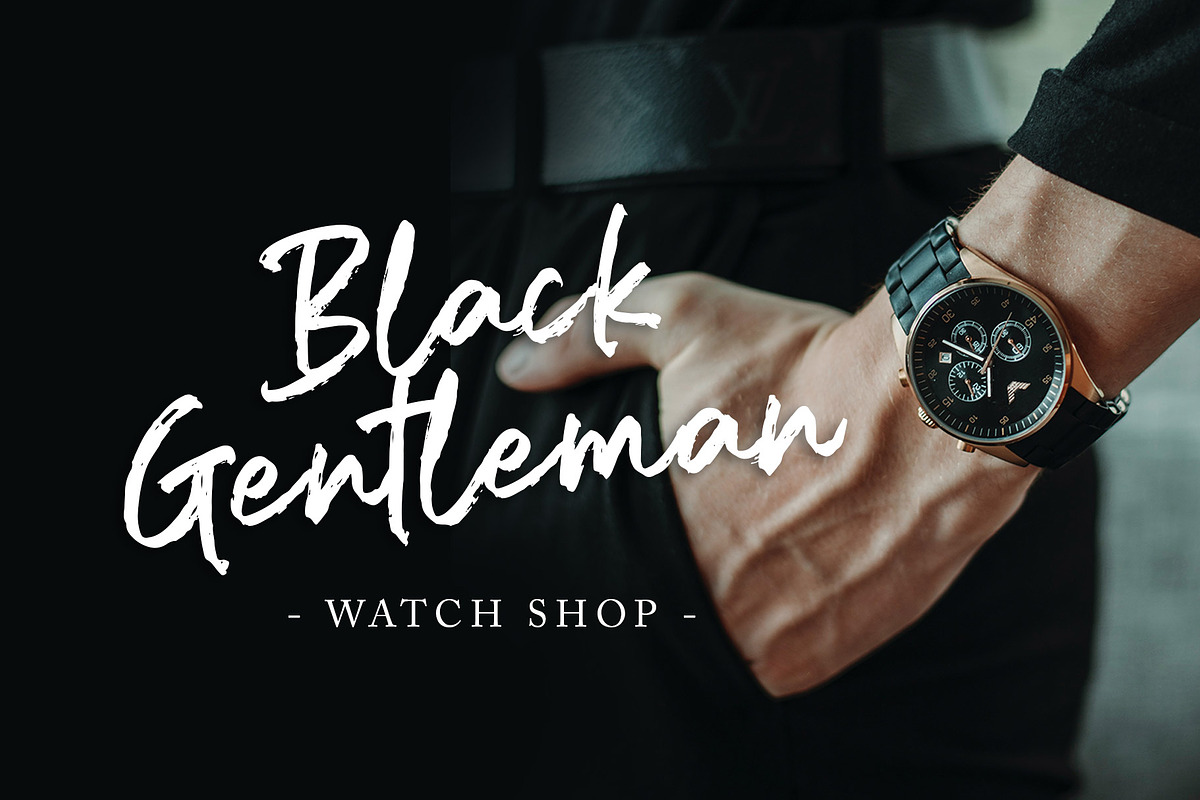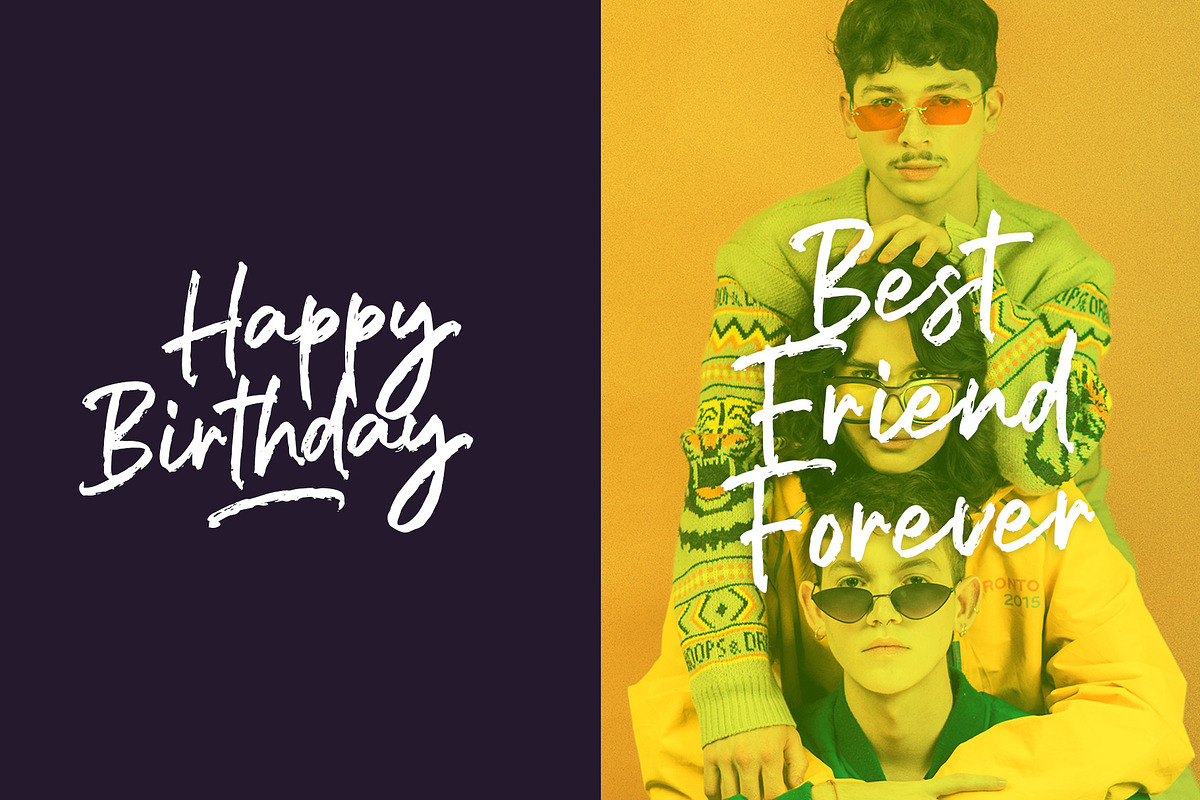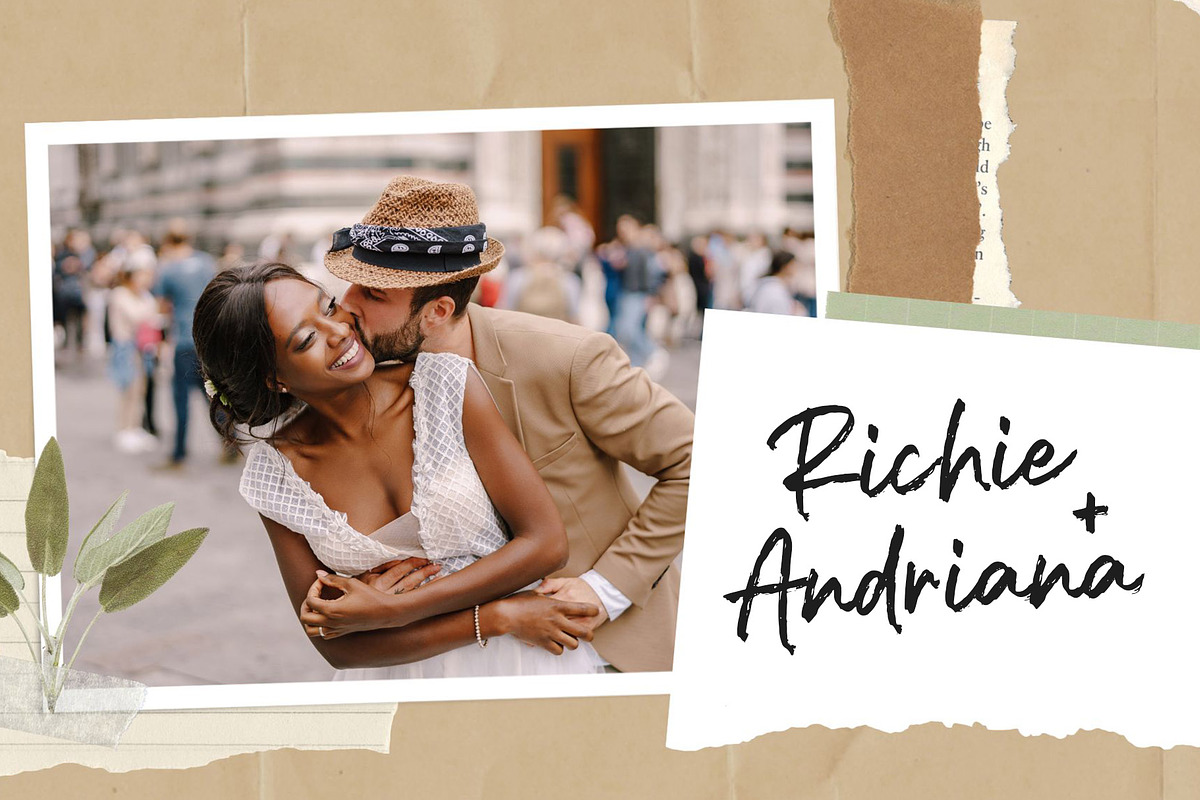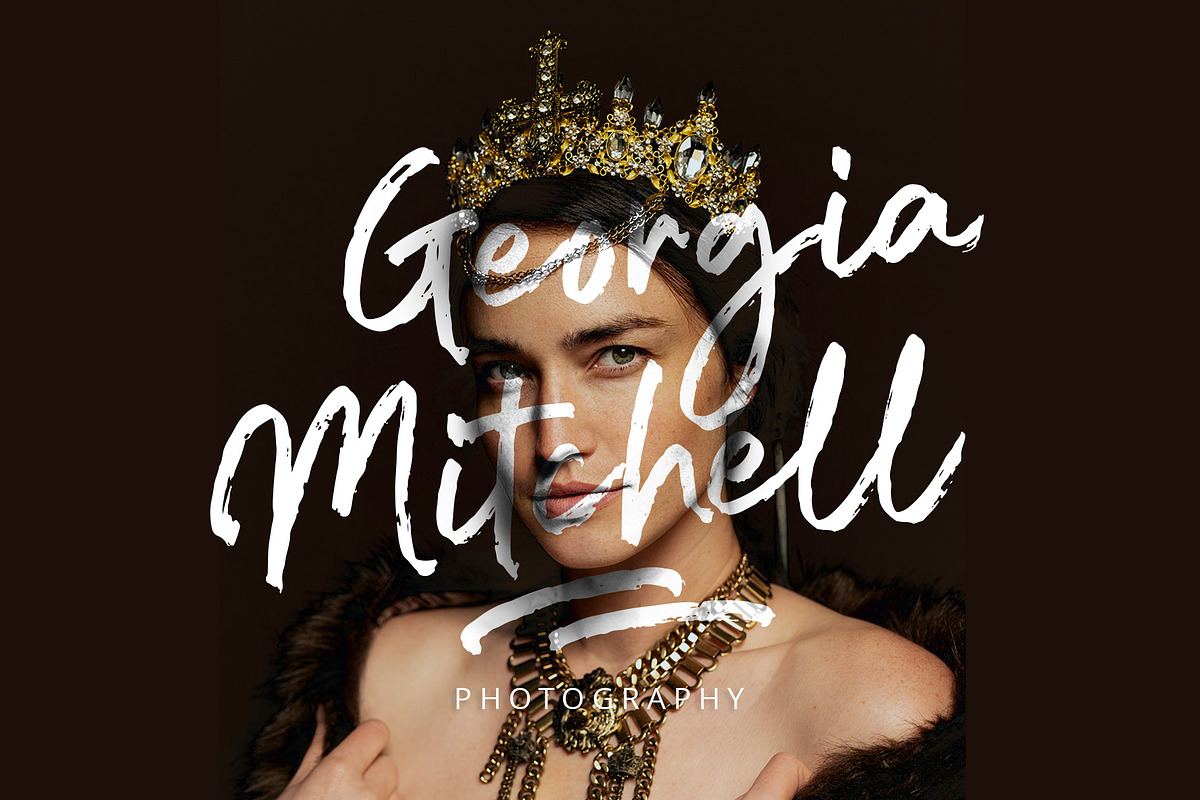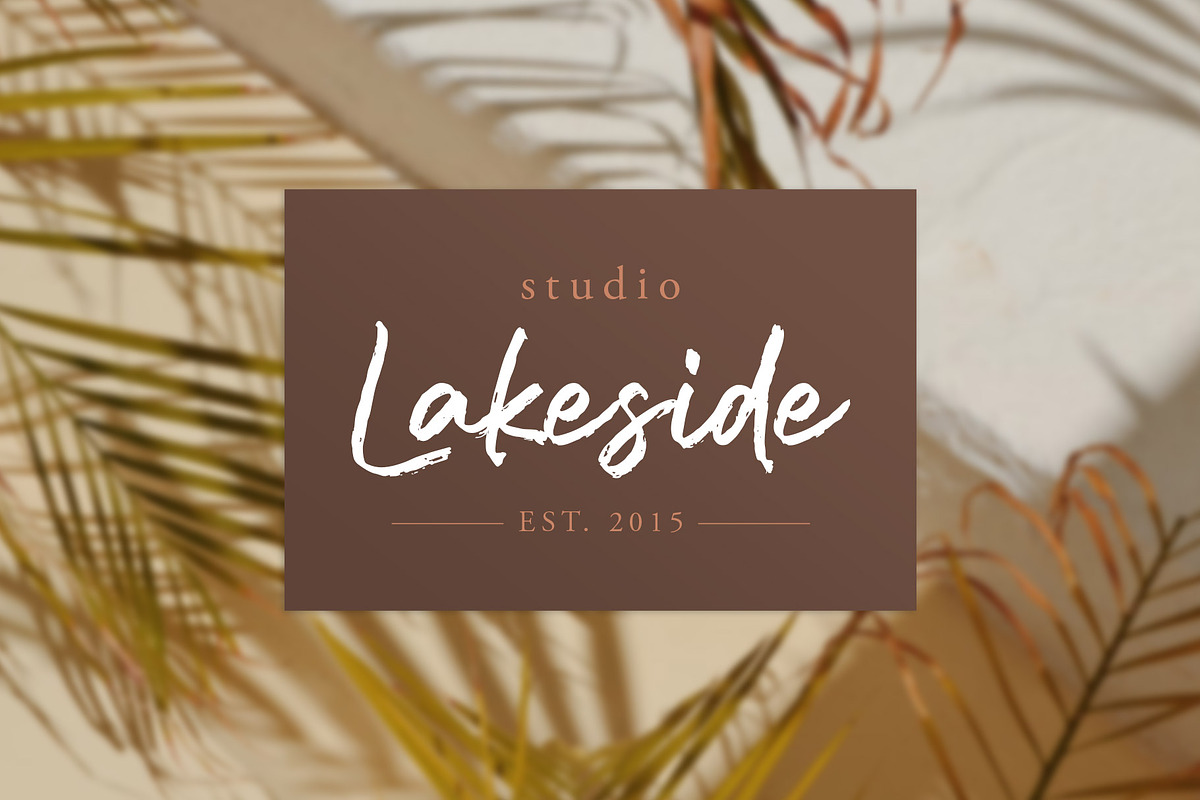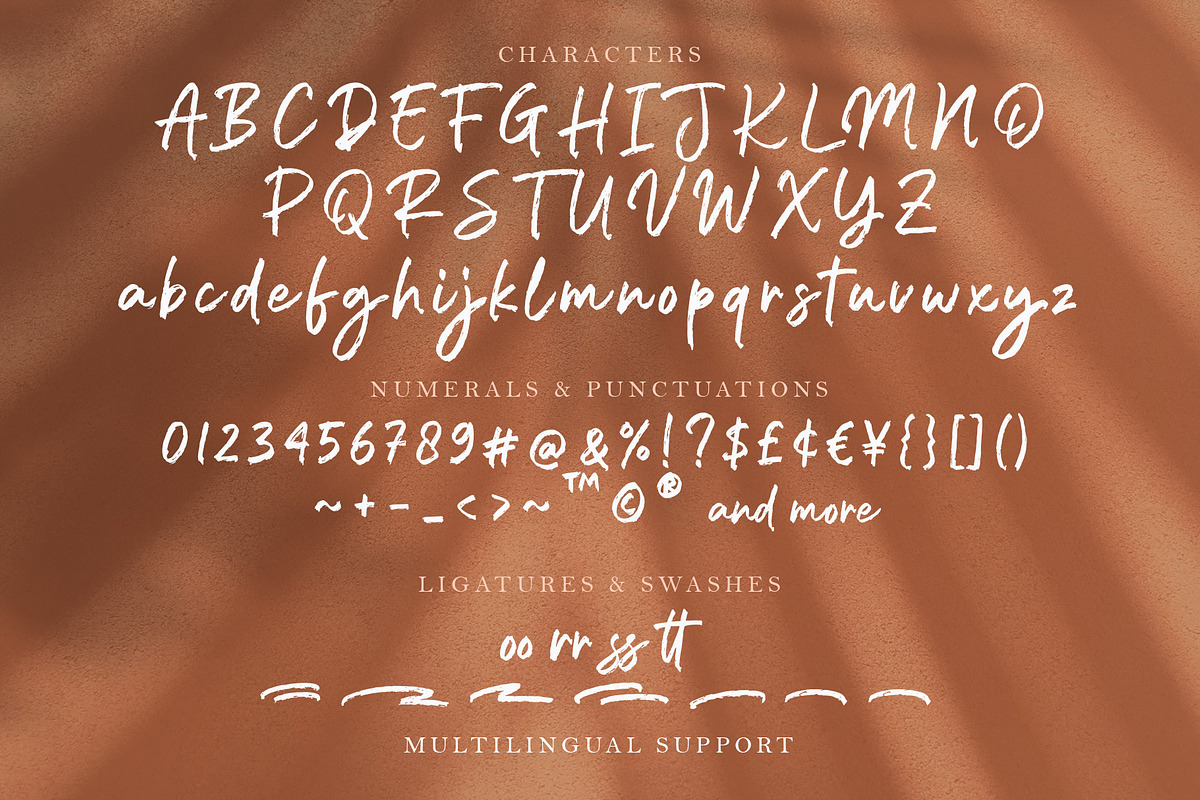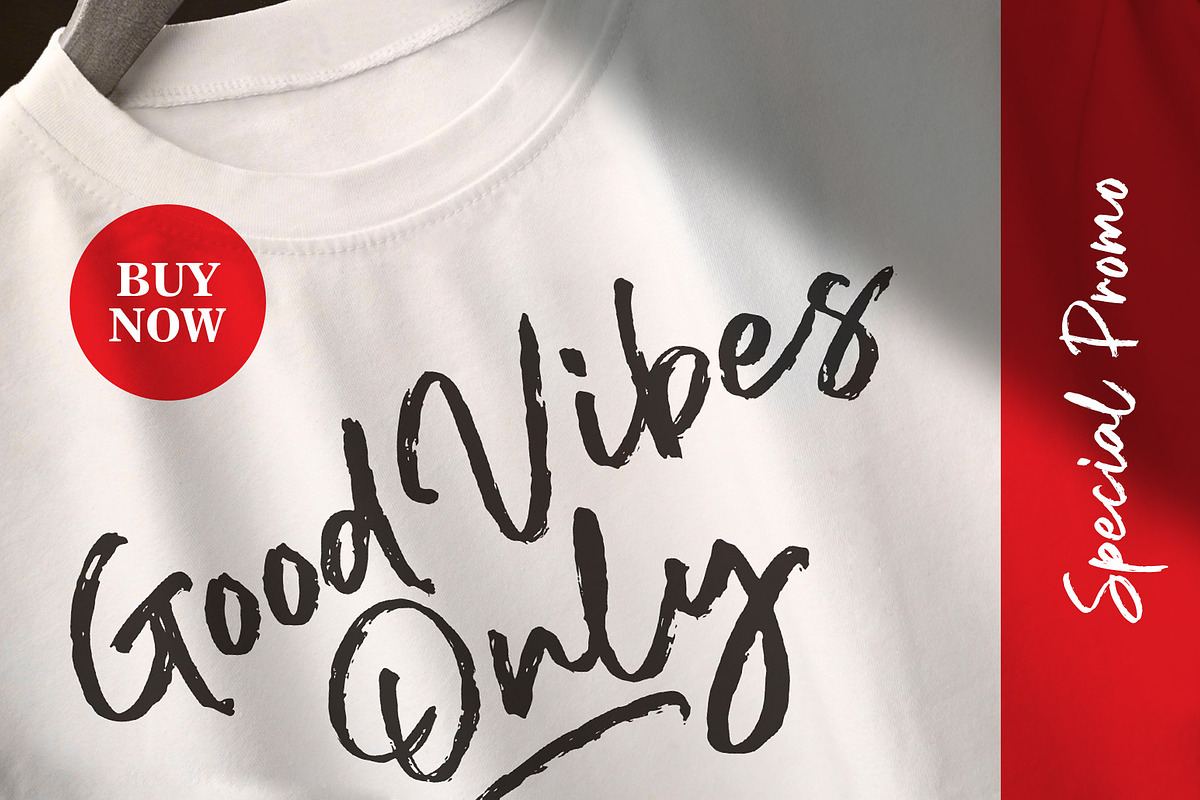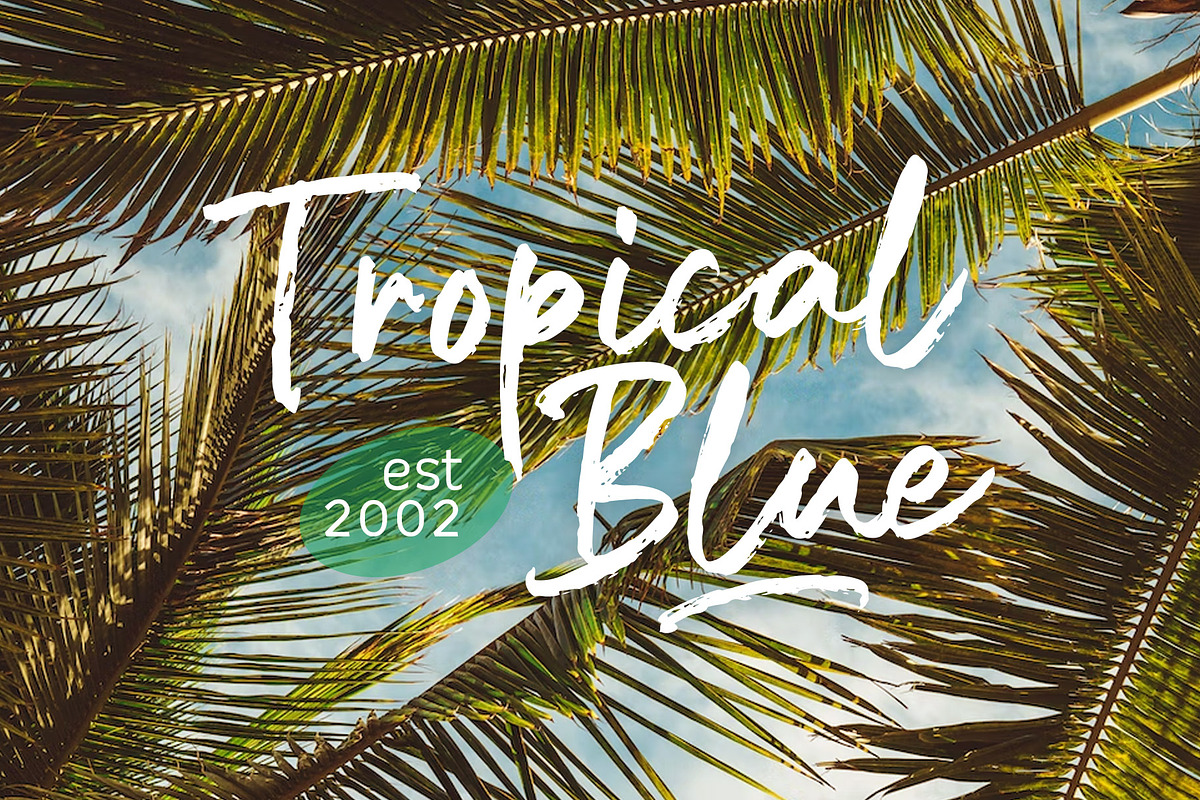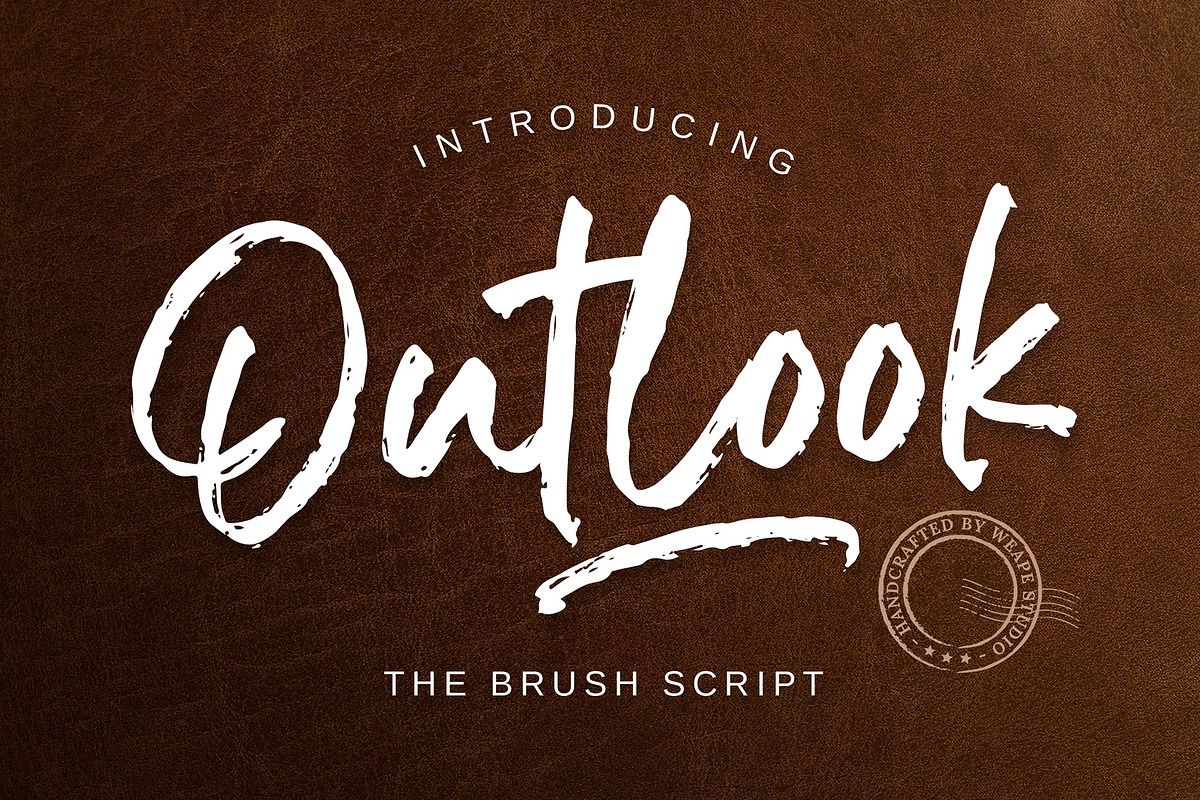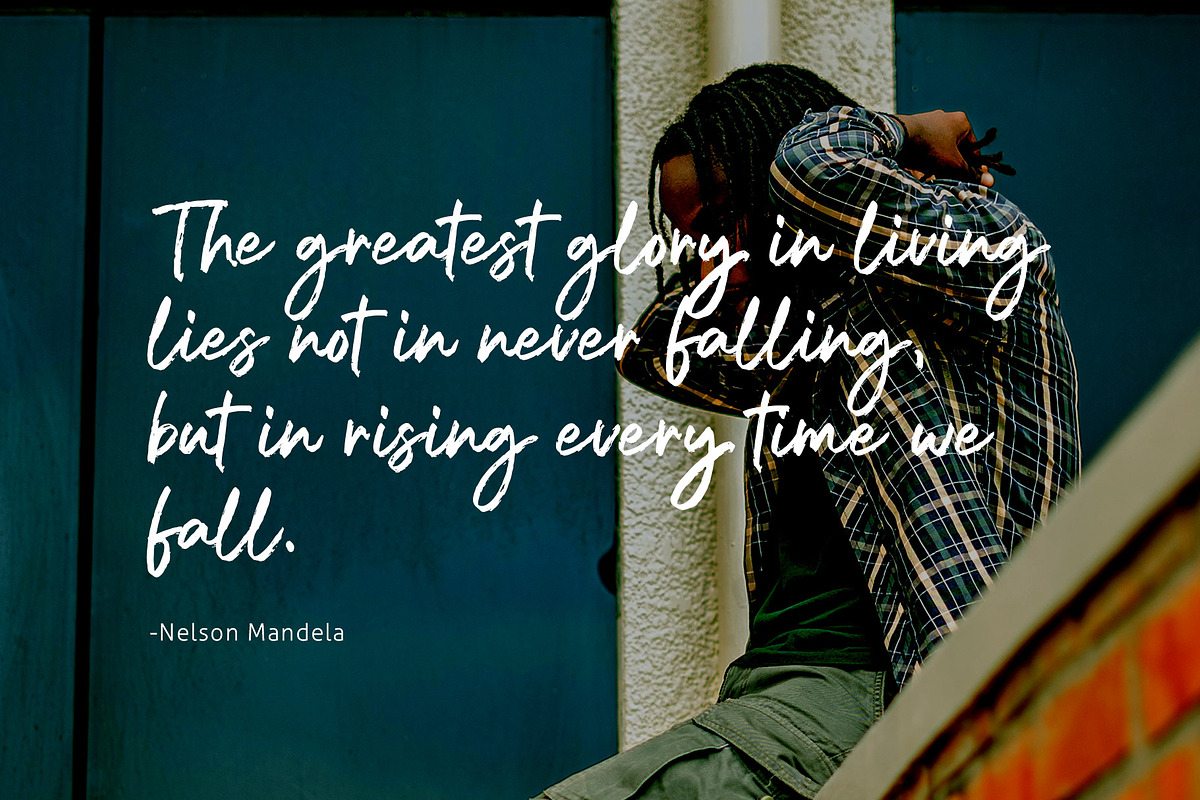
Outlook - Brush Script
Outlook - Brush Script is a font with natural strokes of hand quick. You can use and enjoy Outlook for promotional material and anything.
And this font is perfect for handwritten quotes, product packaging, fashion magazine, signature logo, photography, branding projects, wedding, poster, social media, book covers, flyers, and advertising. You can create it easily and make it as if you wrote it yourself.
All fonts contain upper & lowercase characters, numerals, ligatures, and a large range of punctuation.